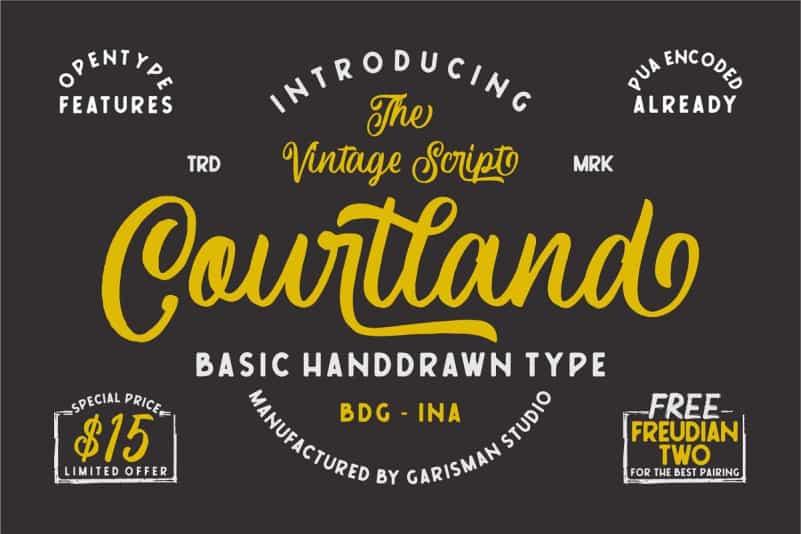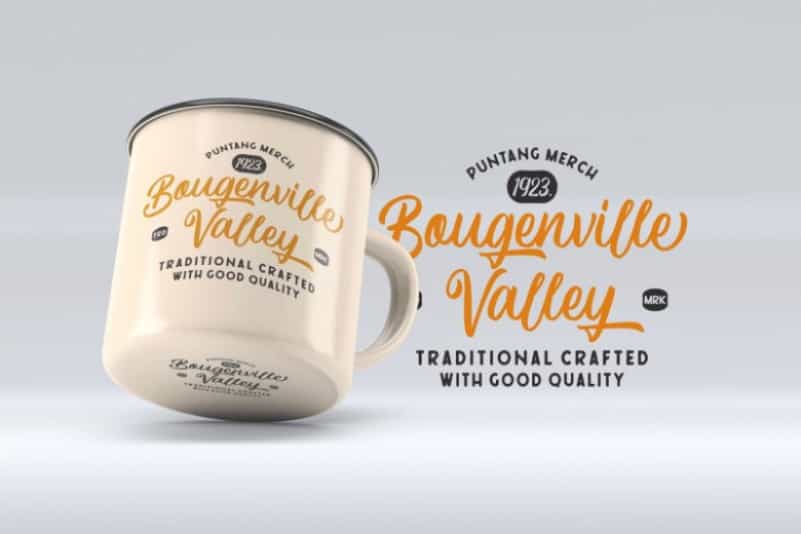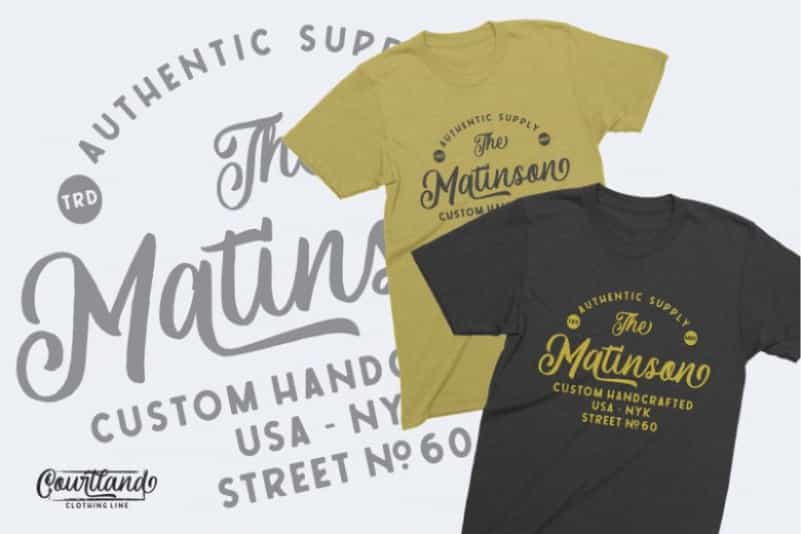
Introducing Courtland Font. It is created and shared by Garisman Std. Courtland Handdrawn Font – One name of a Canadian origin greatly sparked the creation of this vintage font. With the opentype feature: standard ligature, stylistic alternate (for the lowercase), Stylistic Sets 01 through 06 with different styles in every letter. Courtland is just the right typeface for logo types, vintage logos, posters, labels, packaging and headlines. It also fits t-shirts and other designs perfectly.